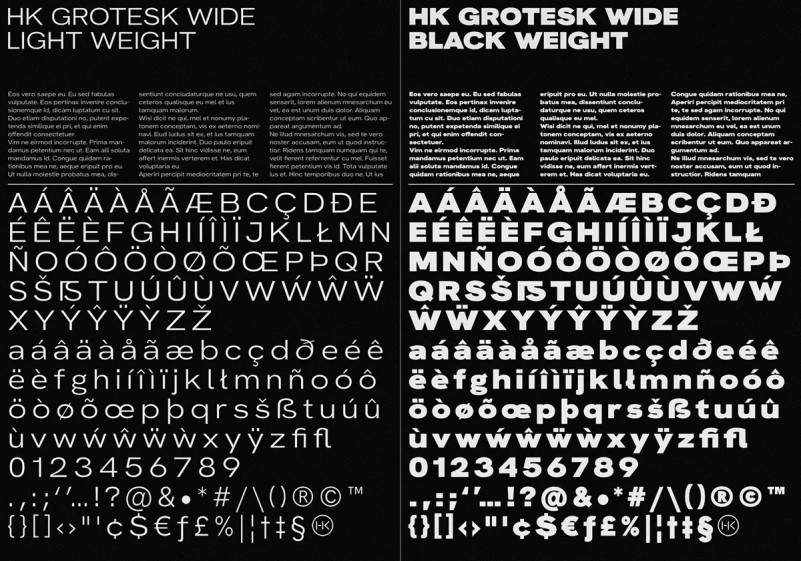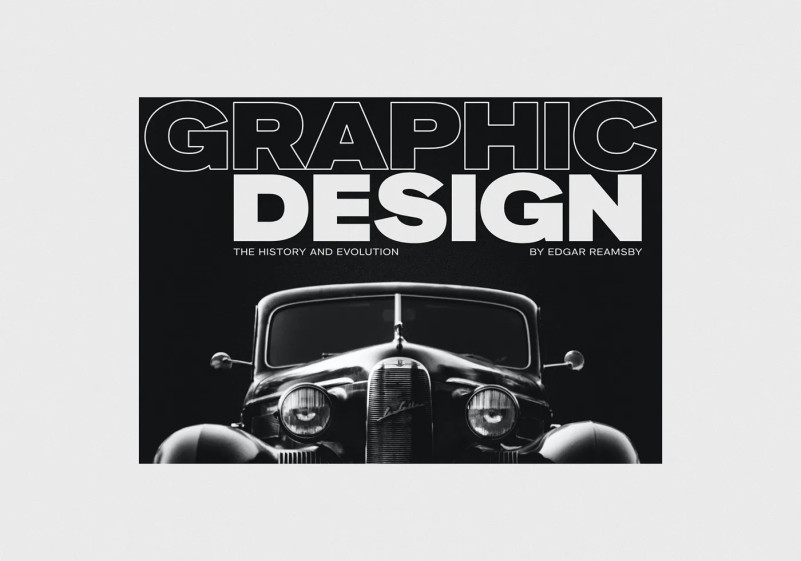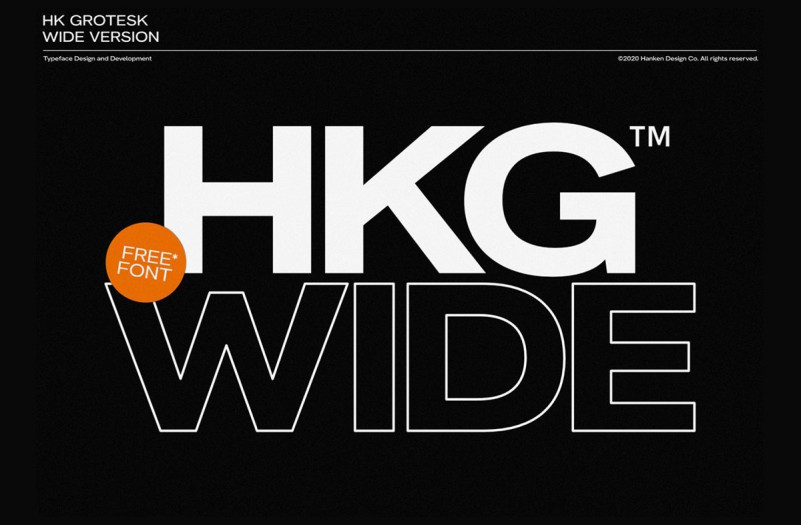
HK Grotesk Wide font is a font for posters, headlines, or book/magazine covers. Design+Development: Alfredo Marco Pradil
| Designer Name: | Alfredo Marco Pradil |
| Classification: | Sans Serif Fonts, Style / Aesthetic Fonts |